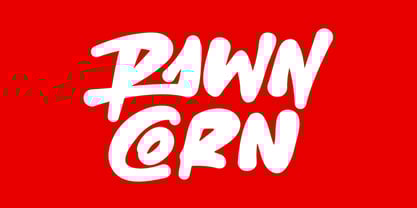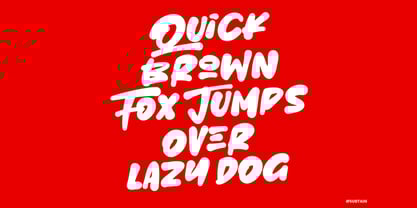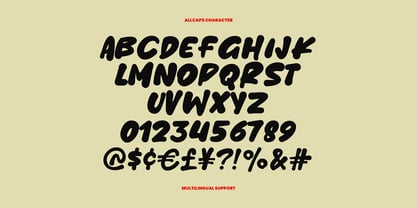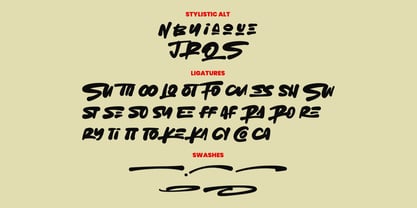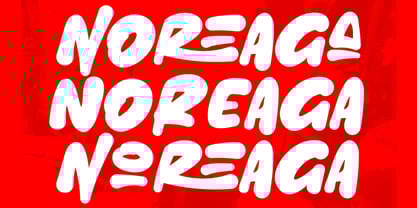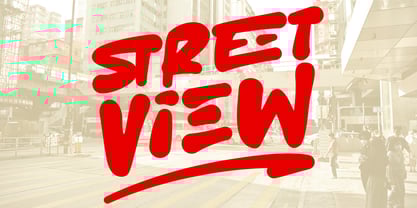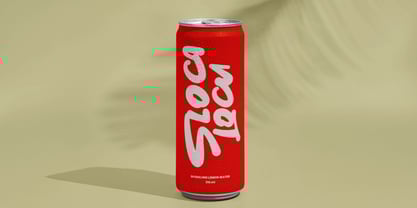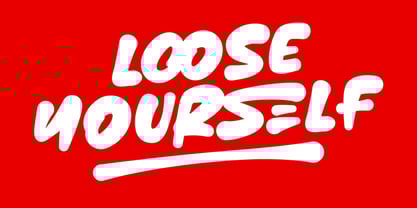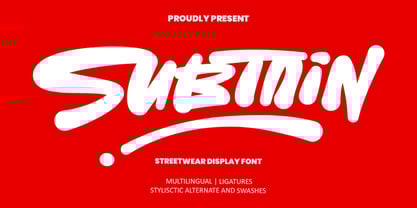
Subtain
by Black Junst
The Subtain Font Family was designed by Maulana Semar and published by Black Junst. Subtain contains 1 styles. More about this family
Subtain is a bold and expressive streetwear display font, drawing inspiration from urban culture and contemporary graffiti design. Featuring thick strokes and dynamic letterforms, Subtain delivers a powerful visual impact to every word you type. This font is ideal for fashion branding, poster designs, merchandise, logos, album covers, and any creative project that requires a daring and energetic flair. Its unique style makes it a standout choice for those looking to make a statement in their designs.
Designers: Maulana Semar
Foundry: Black Junst